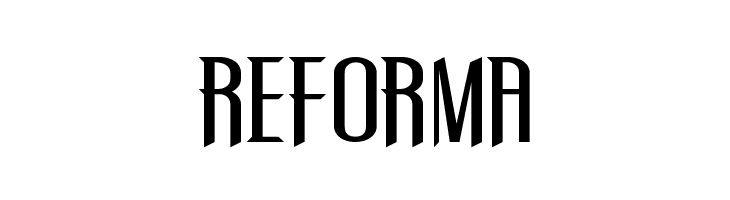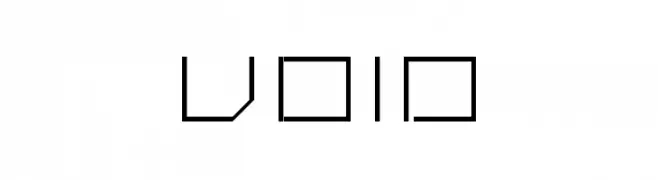
A bold, modern font with geometric influences and high contrast.
A modern, elegant font with tall, narrow uppercase letters and distinctive lowercase features.
A bold, playful outline font with rounded characters and consistent thickness.
A rugged, distressed font with a bold, organic appearance.
A bold, geometric font with a modern, condensed style.
A bold, geometric font with a futuristic, digital aesthetic.
A bold, geometric font with angular, blocky letterforms and a futuristic aesthetic.
A futuristic, geometric outline font with a digital, cybernetic style.
A futuristic, italicized font with angular, dynamic letterforms.
A futuristic, angular font with sharp edges and geometric shapes.